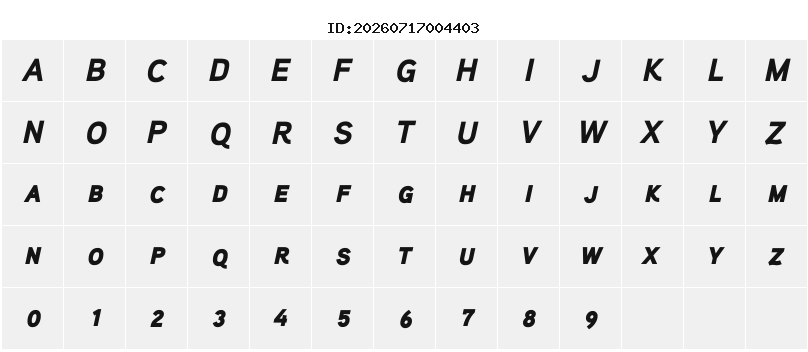
Aaux ProBlack Italic SC Preview
• Font Name: Aaux ProBlack Italic SC
• Full Font Name: Aaux ProBlack Italic SC
About Aaux ProBlack Italic SC.ttf
Aaux ProBlack Italic SC.ttf is a modern, elegant sans-serif font designed for ultimate readability and visual harmony. Perfect for branding, headlines, web design, and print materials.